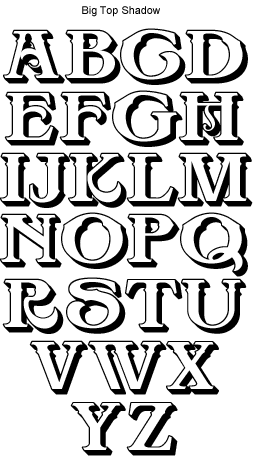
LHF Big Top John found a book featuring old photos of fairs and circuses in England and was inspired to recreate some of the lettering seen on the signs. Features 2 versions: Regular and Shadow.